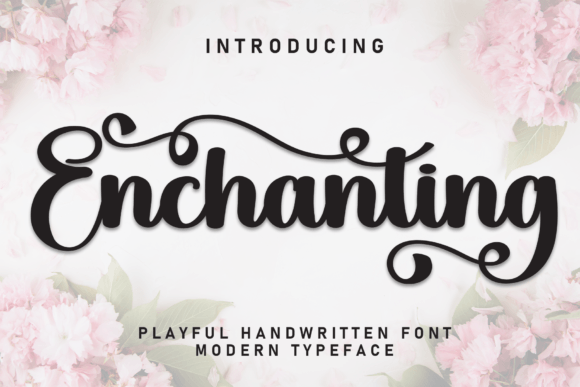
Unlock the Magic of Handwritten Charm
Have you ever stumbled upon a handwritten note or a beautifully crafted invitation that left you with a warm, fuzzy feeling? That’s the kind of charm we’re talking about with the Enchanting Font. This delightful display font is inspired by the sweetness of handwriting, bringing a friendly vibe to your designs.
Whether you’re crafting wedding invitations or personalizing birthday cards, the Enchanting Font is the perfect addition to your design toolkit. Its versatility and playful nature make it an ideal choice for adding an amusing element to any project. With the Enchanting Font, you can transform typography into an expressive narrative, creating designs that not only look visually appealing but also emotionally connect with your audience.
Key Features of Enchanting Font
- Unique Characteristics: Enchanting Font features a magical, whimsical design with intricate details and ornaments, making it perfect for fairy tales, fantasy stories, and children’s books.
Enchanting Font Review
At first glance, Enchanting Font seems like a dream come true. Its whimsical touch and elegant lines are sure to captivate users who crave something magical in their designs. ✨
- Expressive lettering that adds a touch of wonder to any project
- Customizable options to suit different design styles
- Works well in digital and print media
However, like any font, Enchanting Font has its limitations. ✨
- Can be overwhelming in large blocks of text
- Lack of a bold weight option
- May not be suitable for minimalist designs
Overall, I’d say Enchanting Font is a great addition to any designer’s toolkit. It’s perfect for projects that need a touch of magic and whimsy. While it may have some limitations, its expressive lettering and customizable options make it a standout choice. Just be mindful of its potential drawbacks and use it wisely.
The Enchanting Font is perfect for creating whimsical and magical designs, such as invitations, posters, and social media graphics. It’s also great for adding a touch of elegance to your business cards and brochures.